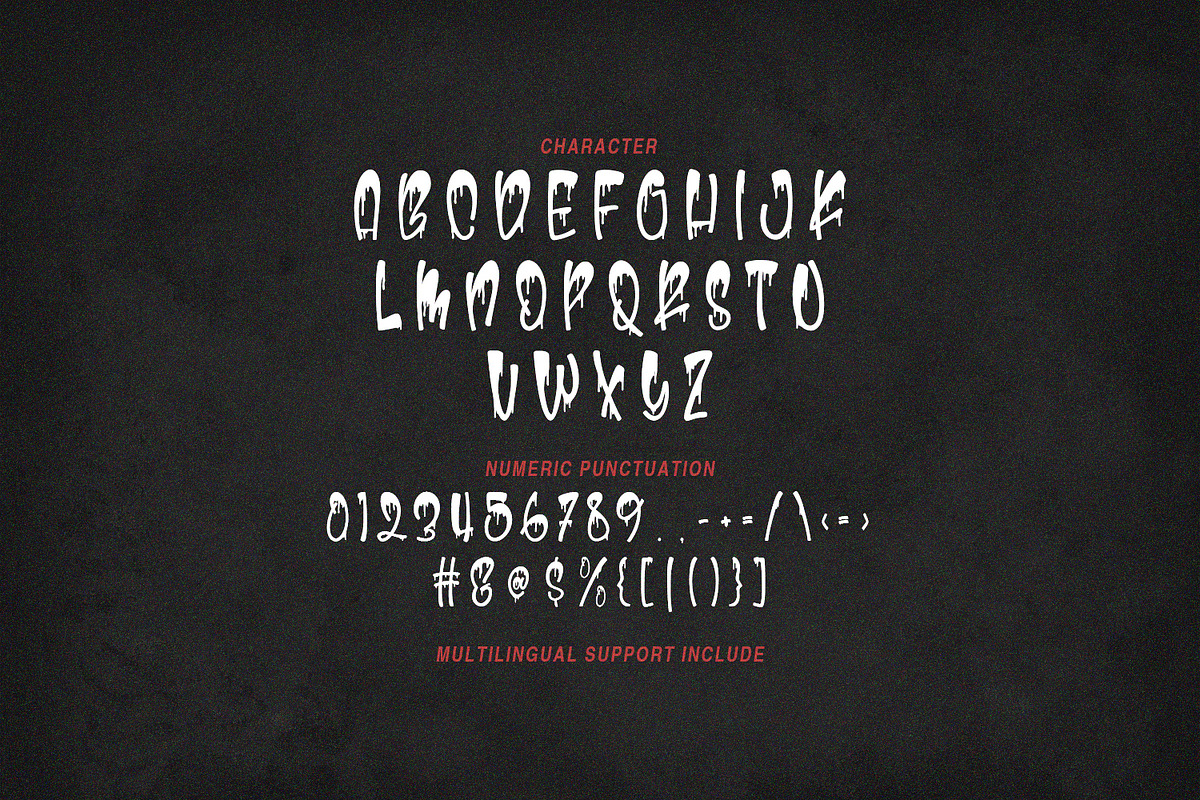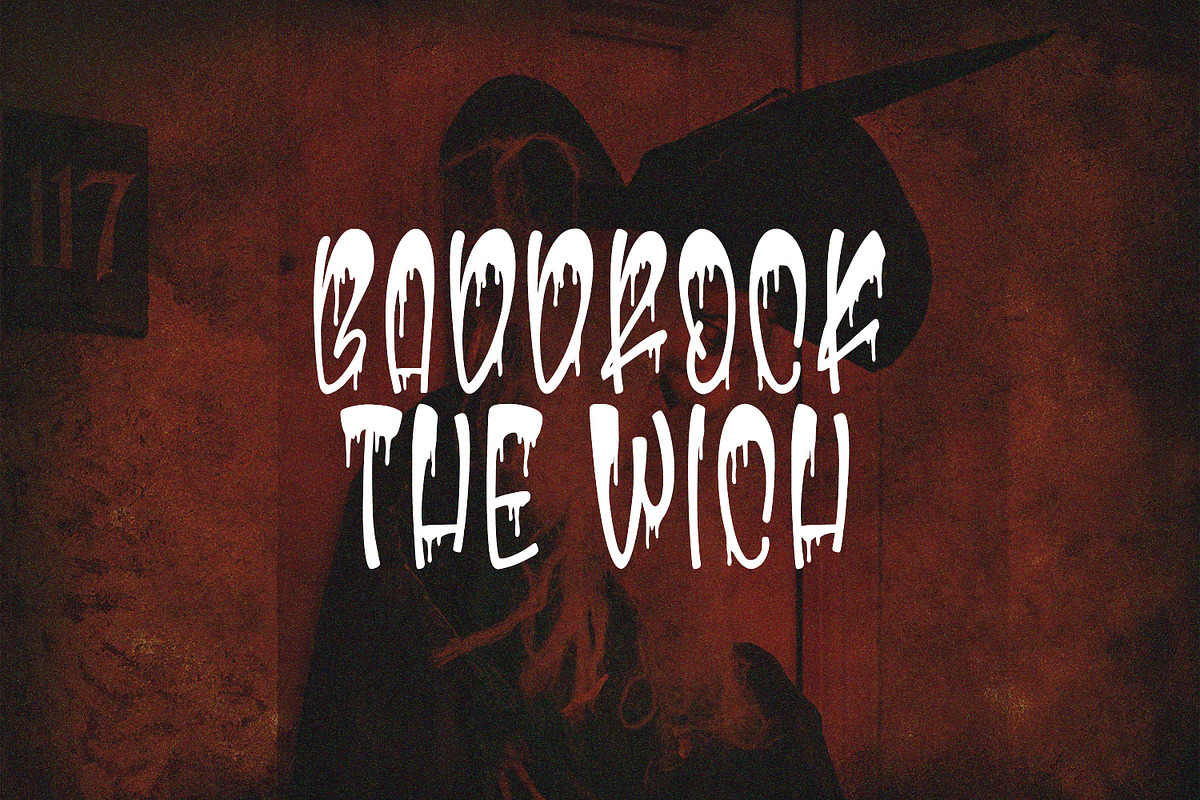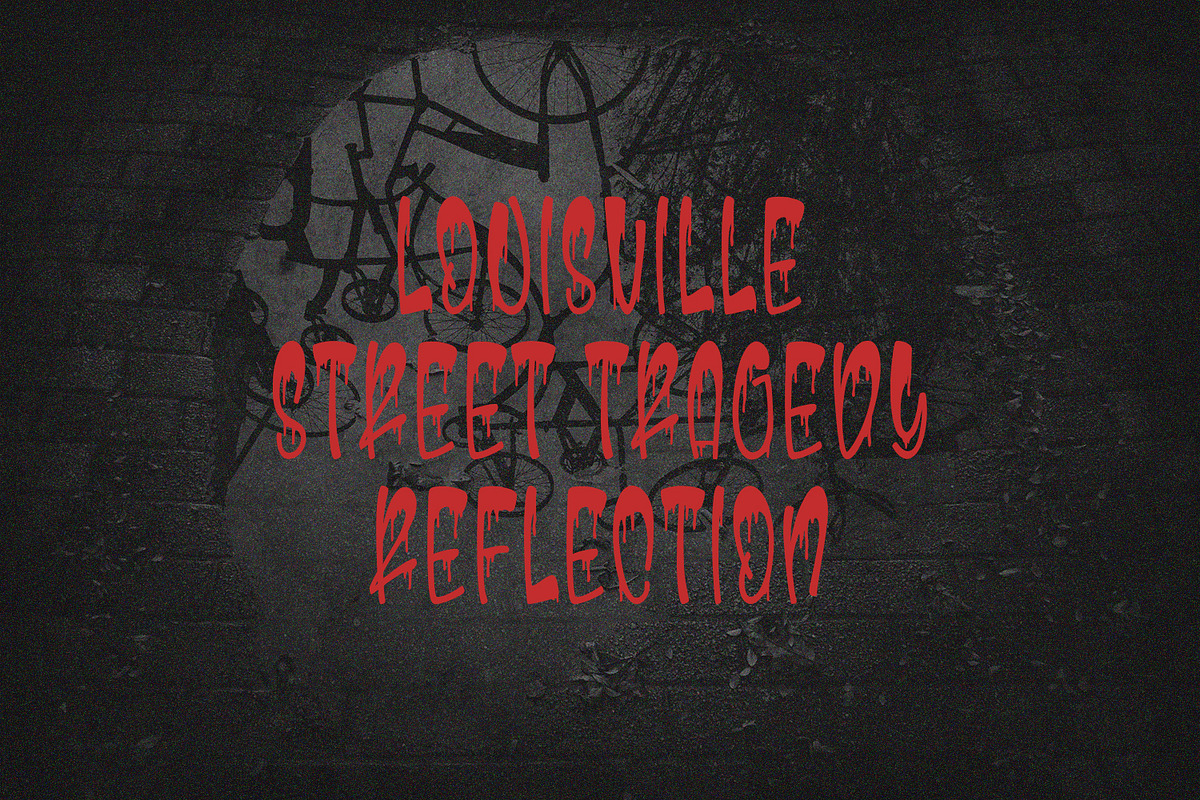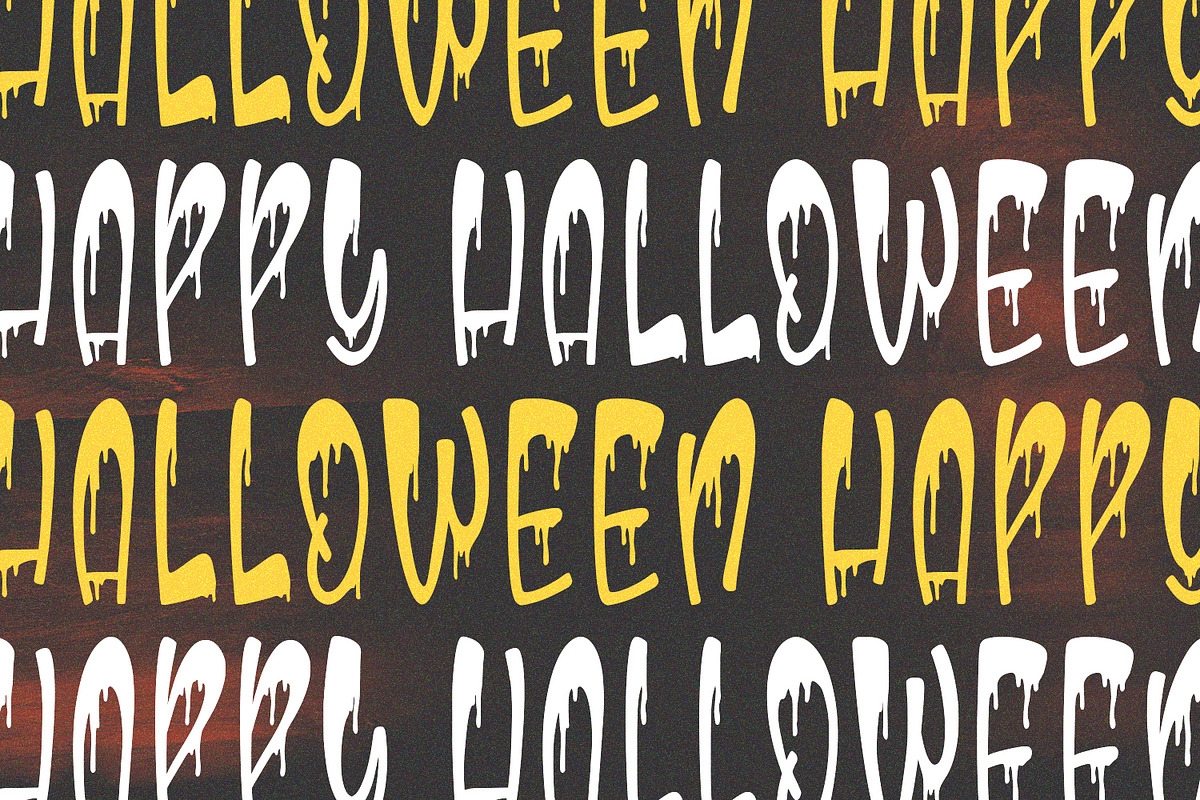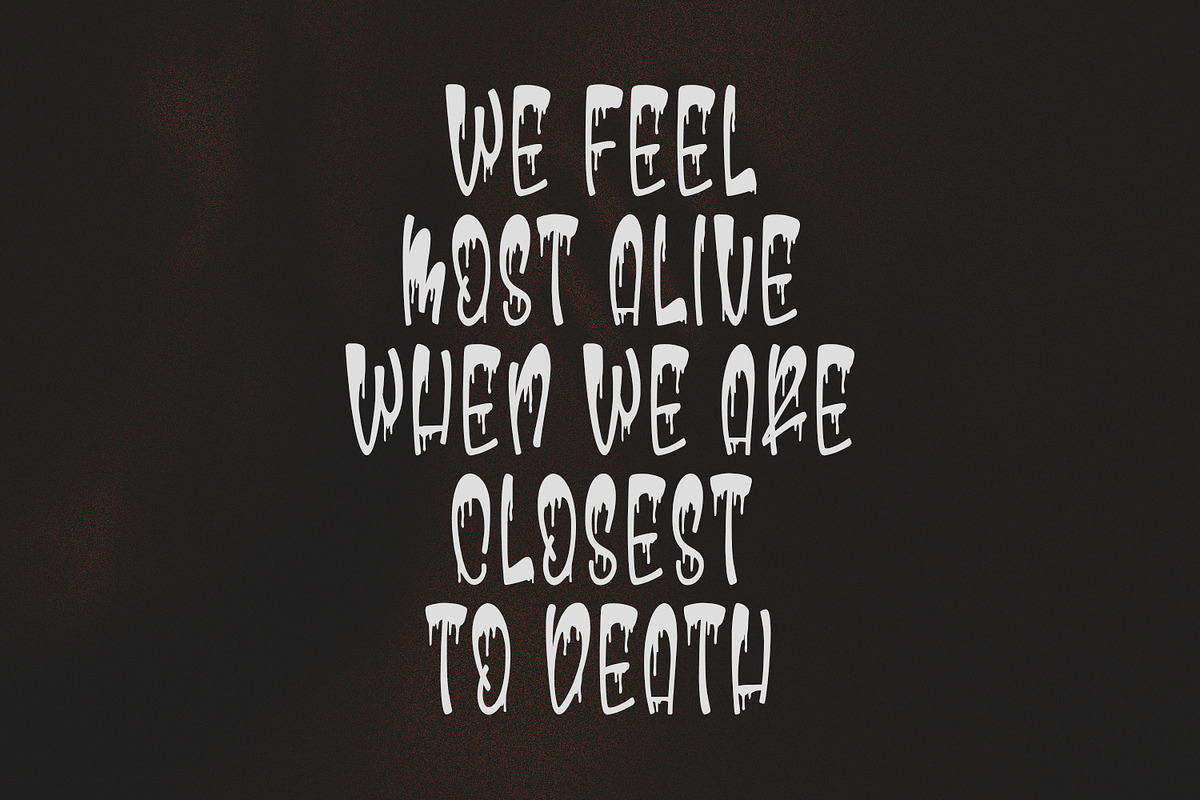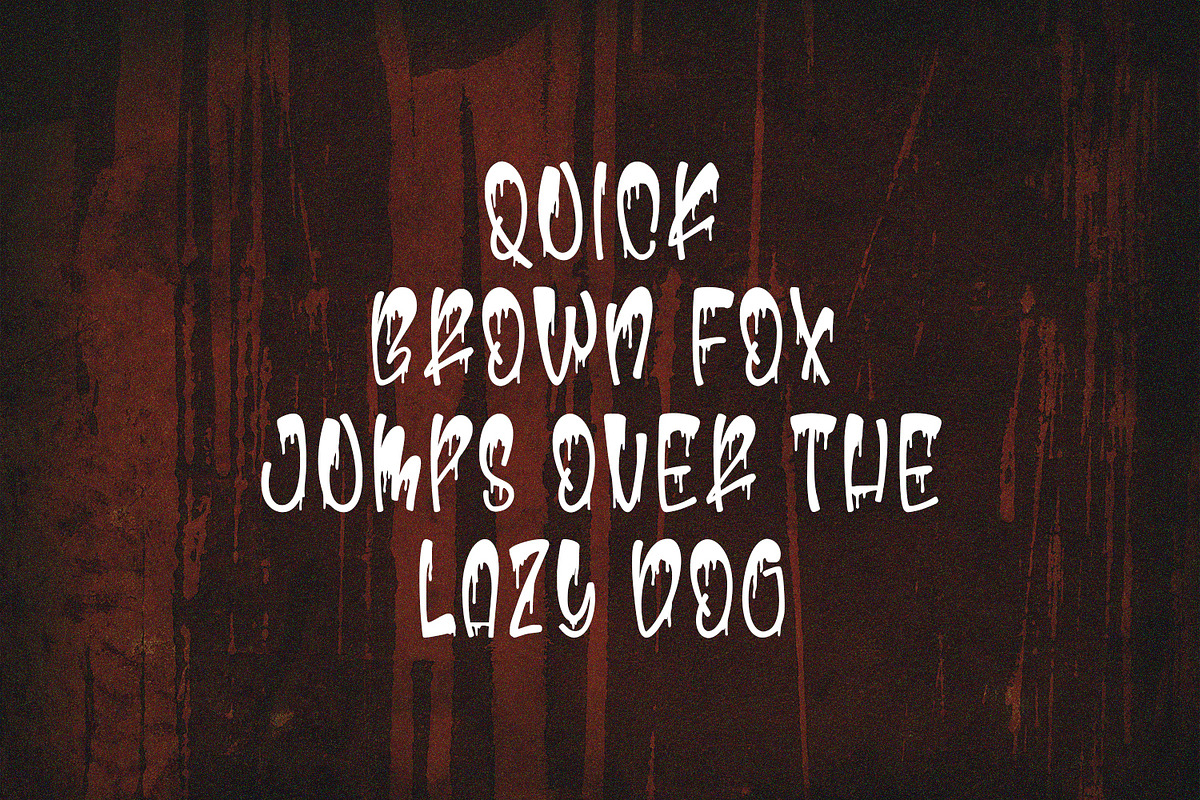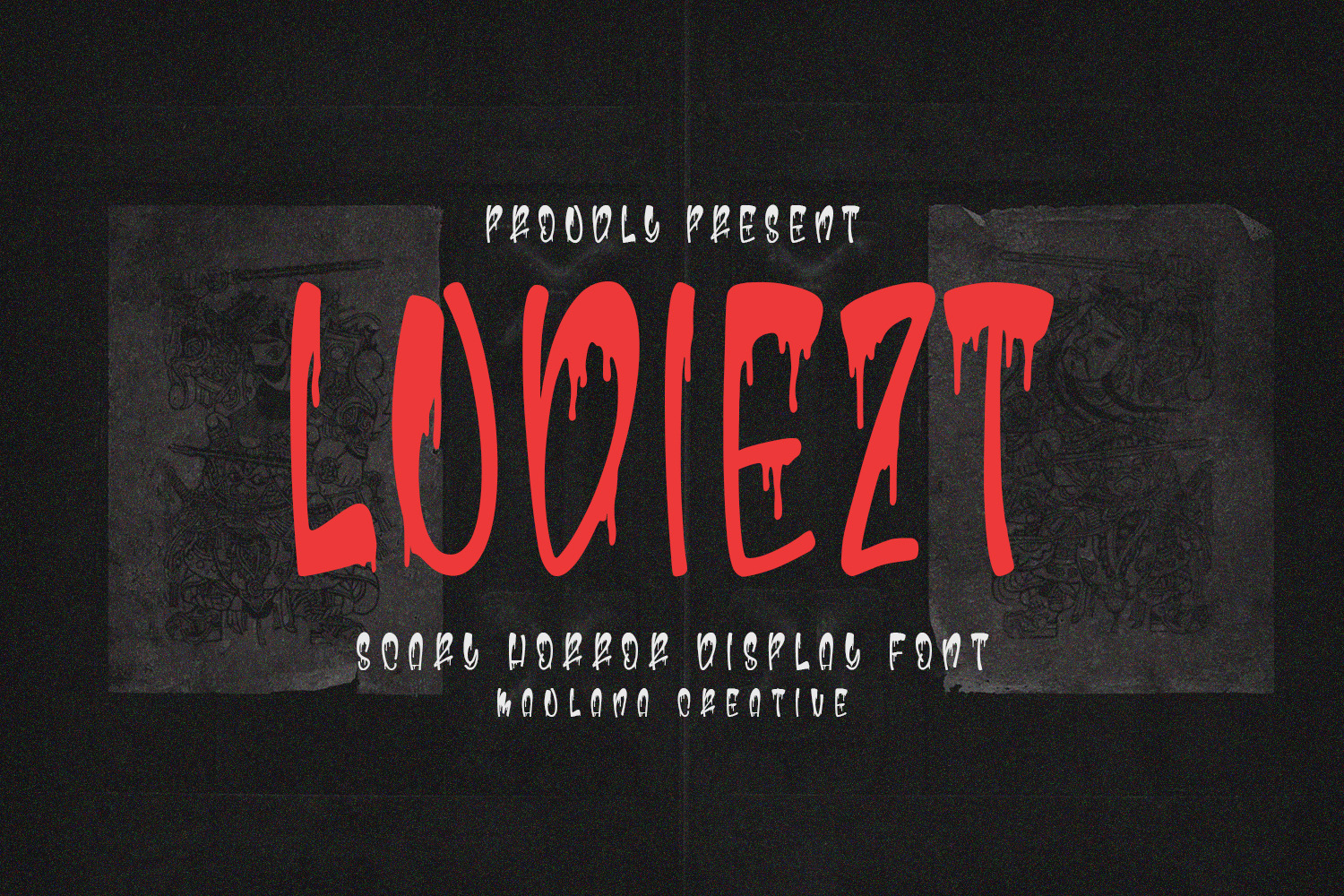
Ludiezt Dripping Display Font
Ludiezt is a horror display font with a unique, creepy dripping effect. It's perfect for horror, zombie, apocalypse, thriller, Halloween, and sci-fi post-apocalyptic design projects. Its fluid-textured letterforms, reminiscent of dripping blood or slime, create a terrifying yet artistic feel. With its bold, unique characters and eerie atmosphere, Layuger will make your designs stand out and make an impression.
Ludiezt is a creepy dripping display horror font with a creepy style, suitable for Halloween designs, zombie designs, thriller films, and apocalypse-themed branding.
- Horror or thriller movie design
- Zombie, sci-fi, or survival design
- Dark and gothic-themed branding
- Halloween events, haunted houses, and escape rooms